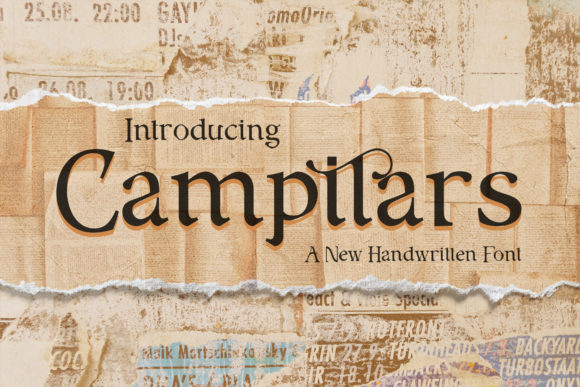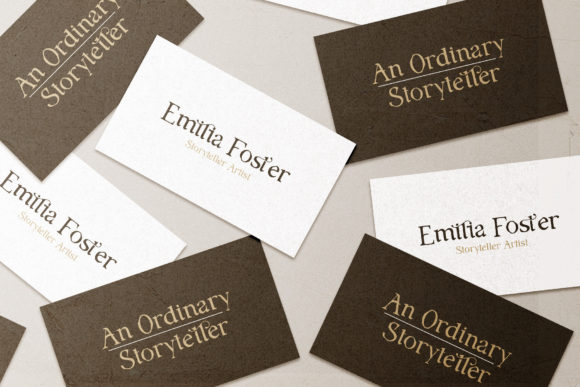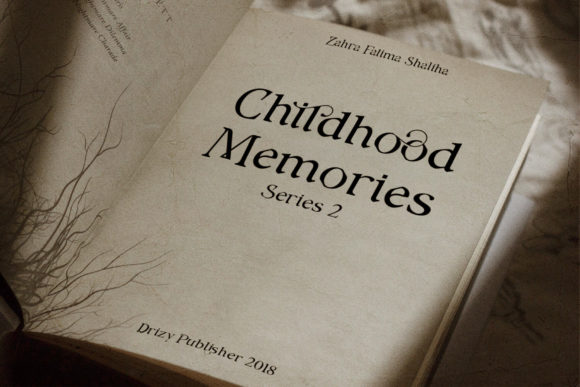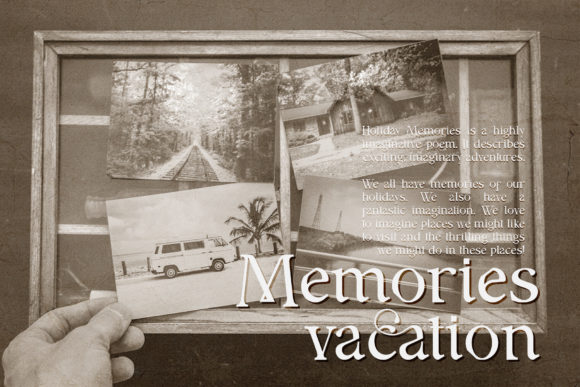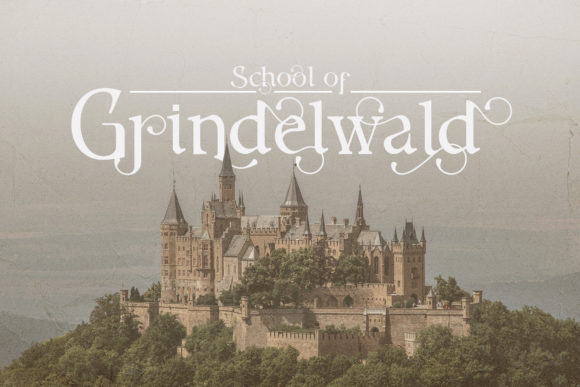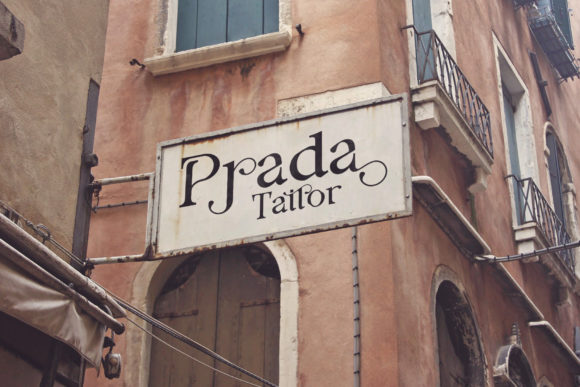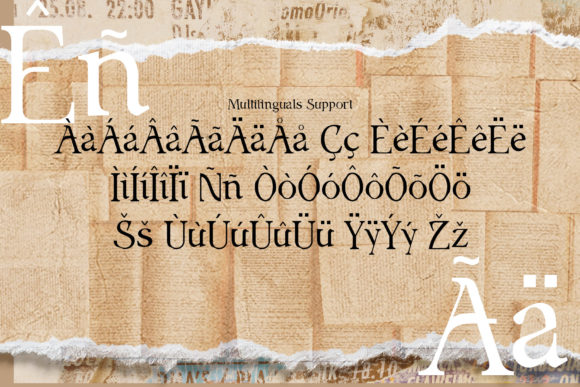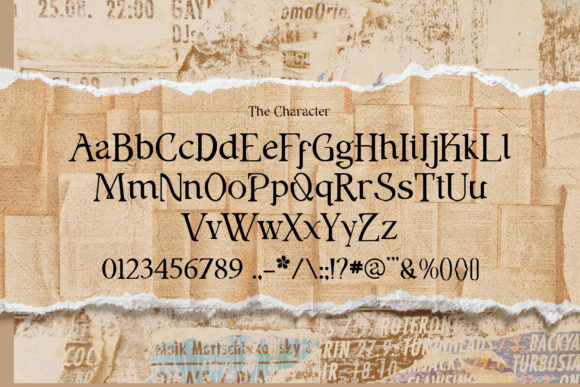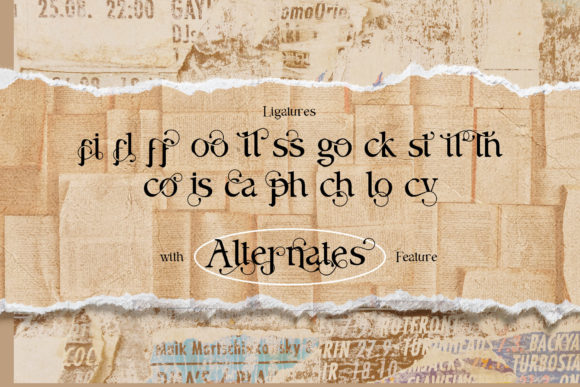
Campilars Font
Campilars is a sweet and friendly handwritten font that exudes a natural and unique style. Its charming characteristics make it an exceptionally versatile choice, seamlessly fitting into a diverse range of designs. The only limit to its application is your imagination!
The sweetness and friendliness of Campilars make it a delightful option for various creative projects. Whether you’re working on invitations, branding, social media graphics, or any other design, this font adds a warm and approachable touch to your text.
Campilars’ handwritten charm contributes to its adaptability, allowing it to shine in both digital and print contexts. Its natural strokes and unique flair make it stand out, infusing your designs with a touch of personality and individuality.
In summary, Campilars goes beyond being just a font; it’s a design asset that offers a sweet and friendly character to your creative endeavors. Explore the possibilities, and let Campilars be the perfect choice for adding a natural and unique touch to your designs.